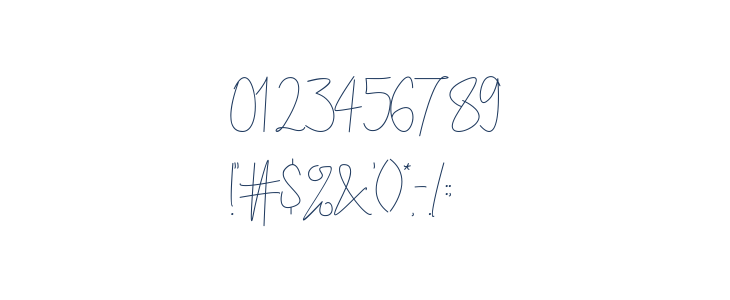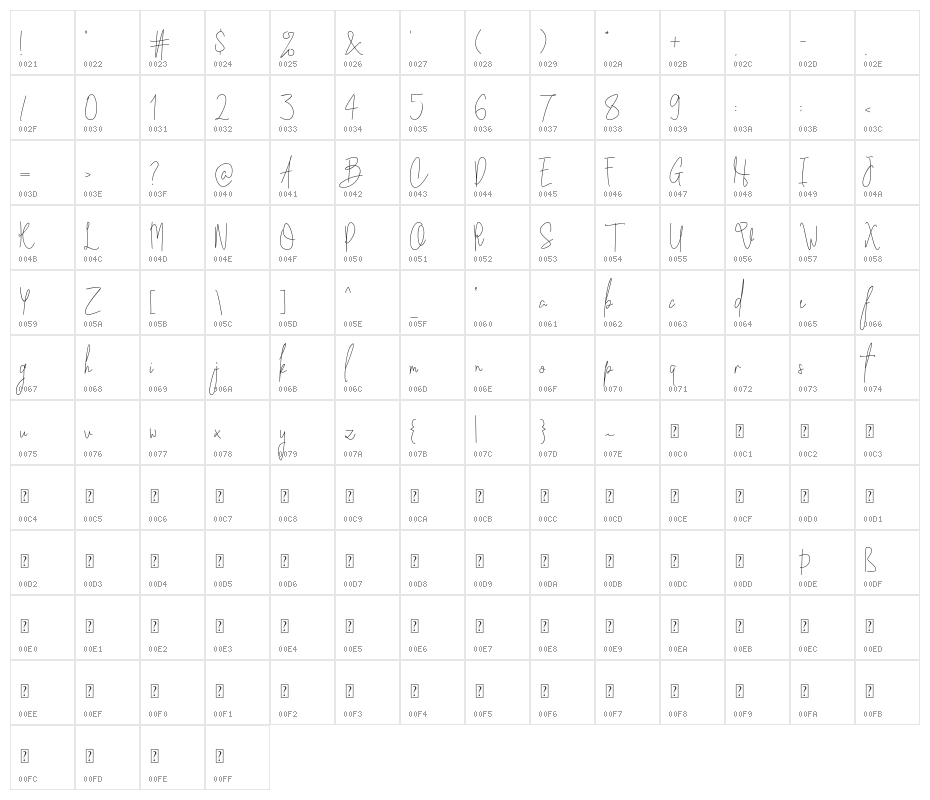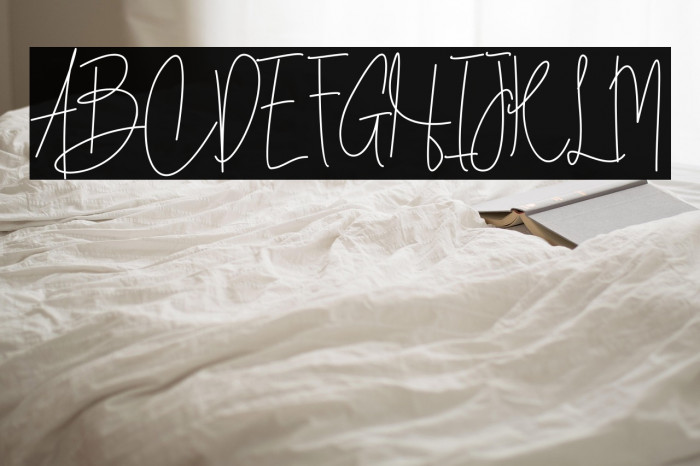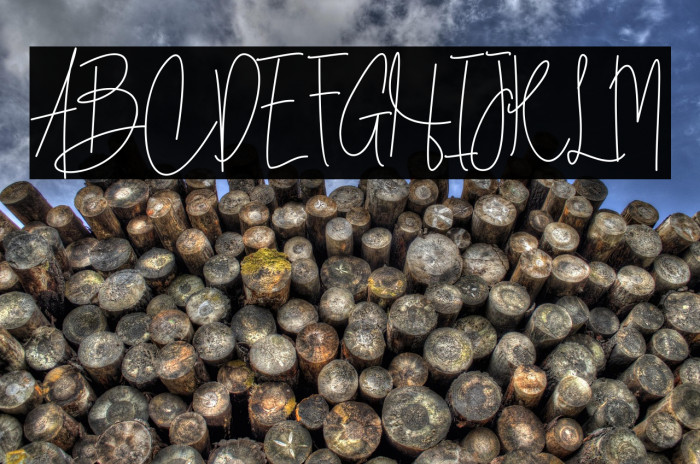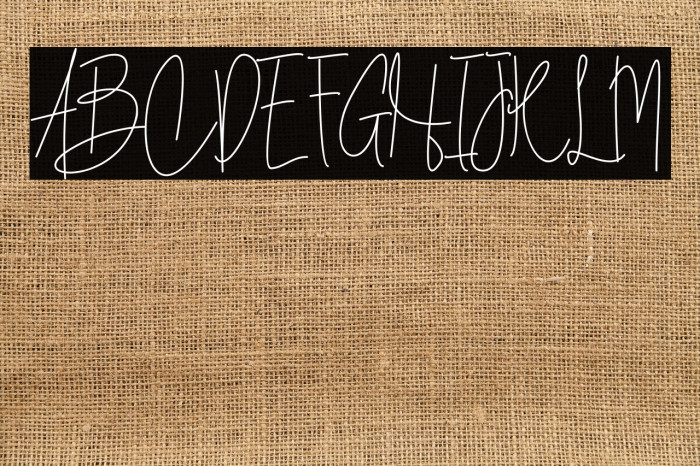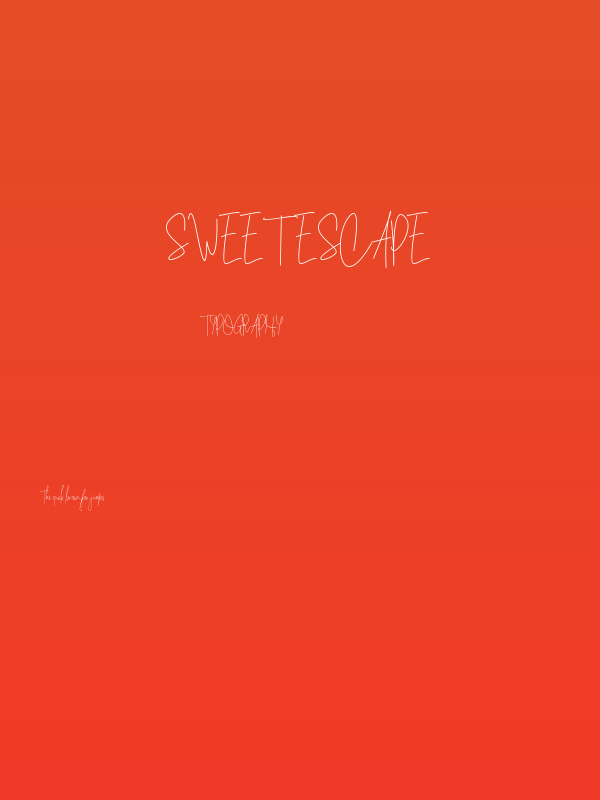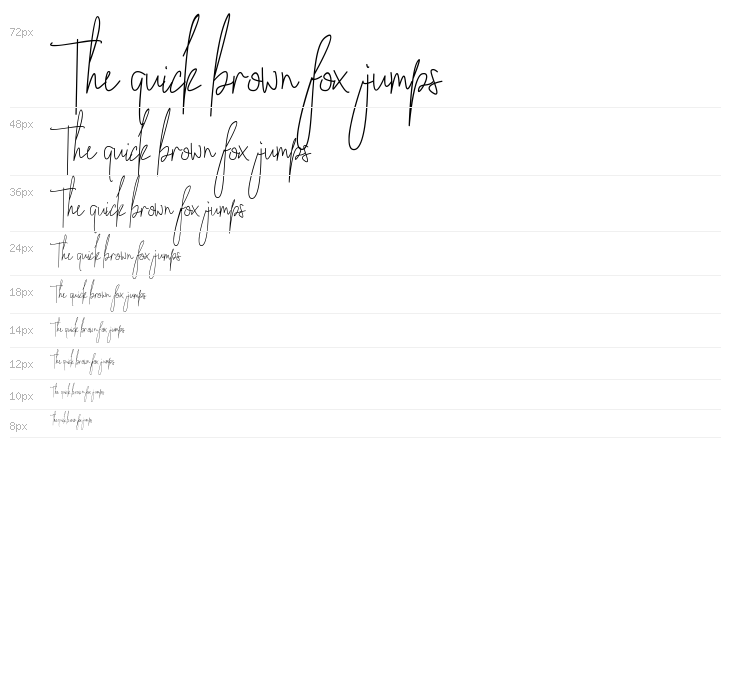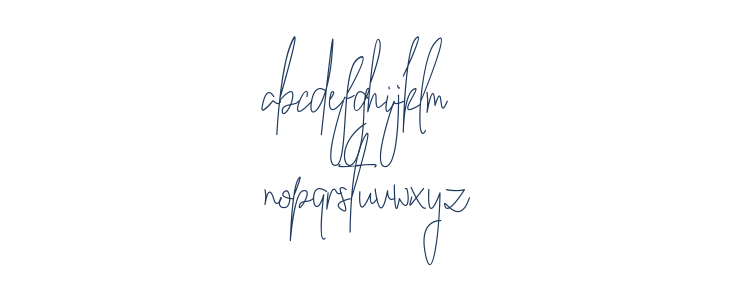
Sweet Escape Font
Sweet Escape Description
This font features a playful and whimsical handwritten style, characterized by its loose, flowing lines and casual elegance. The letters are tall and slender, with a slightly irregular baseline that adds to its charm. The strokes are thin and consistent, giving it a delicate appearance. The uppercase letters are bold and expressive, while the lowercase letters maintain a more subdued and cohesive look. Numbers and special characters follow the same fluid style, making it versatile for various design needs. Its overall aesthetic is both modern and approachable, perfect for projects that require a personal touch.
| Overall Style | Whimsical |
| Proposed Projects | Ideal for greeting cards, invitations, personal branding, and creative projects that require a touch of personality. |